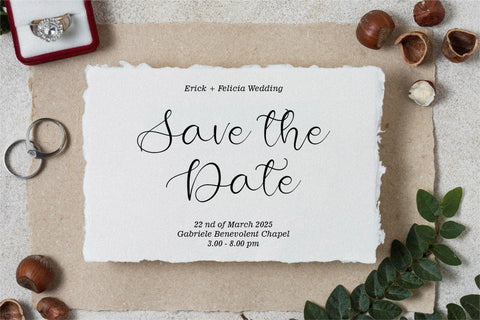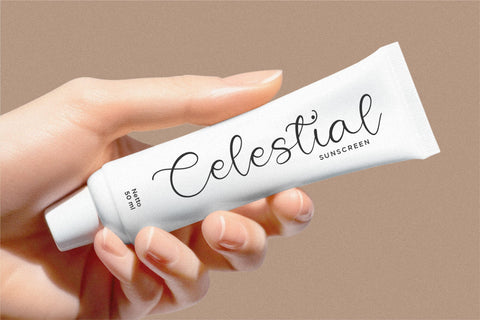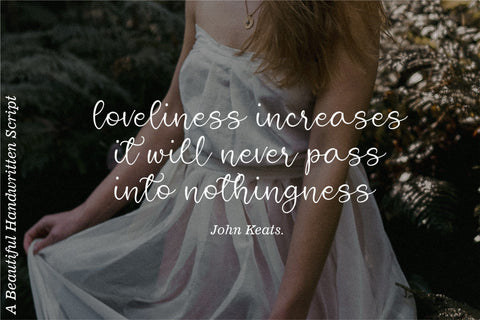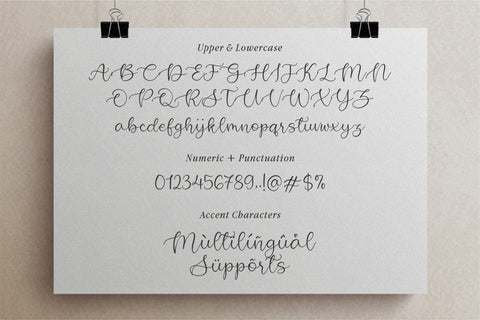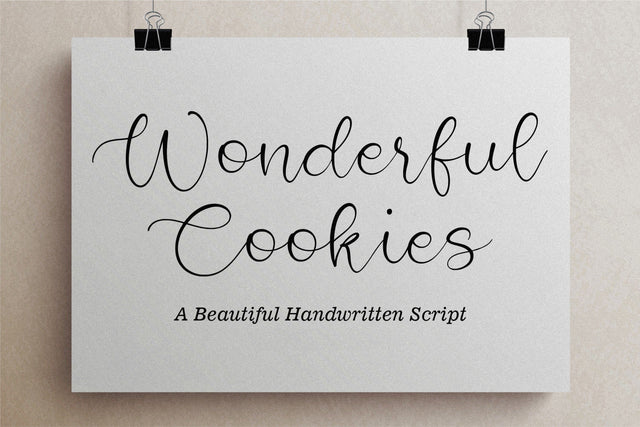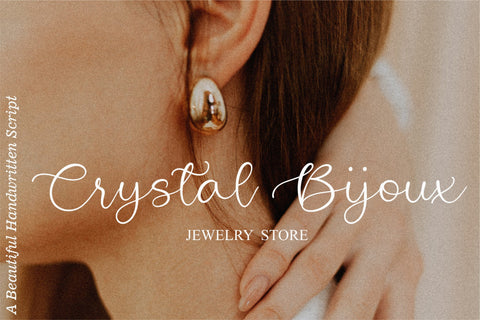
Wonderful Cookies Font
Wonderful Cookies is a Beautiful Handwritten Script Font that's perfect for adding a personal touch to your design projects! With its natural, organic feel and unique character.
Crafted with care and attention to detail, this font is incredibly versatile and can be used for a range of design projects, including logos, branding, invitations, and more. Its modern, handwritten style gives it a unique character that's sure to make an impact.